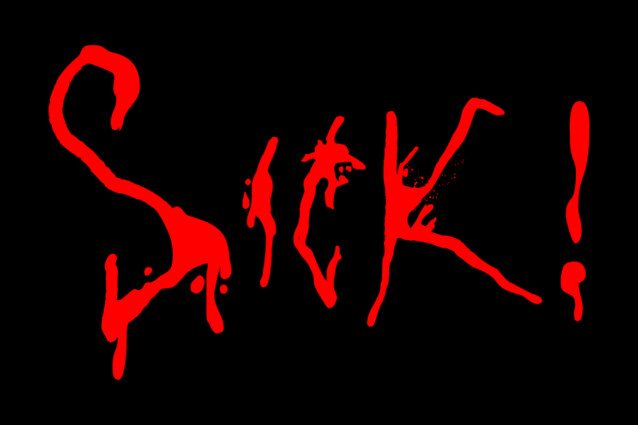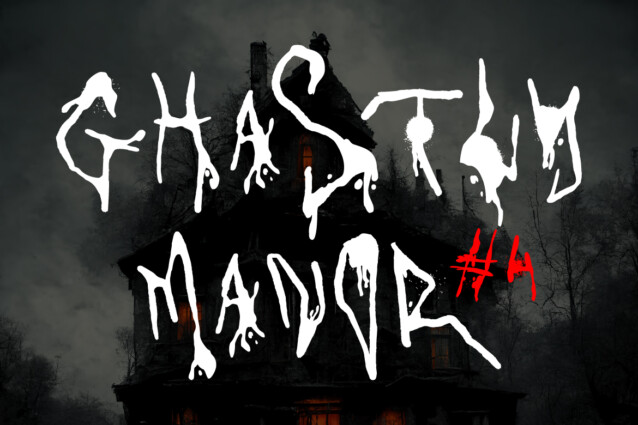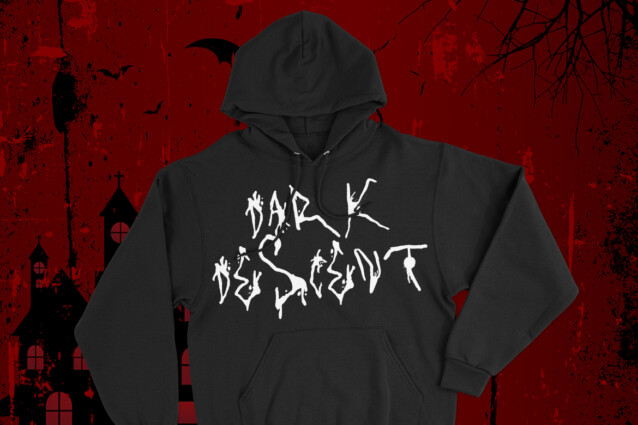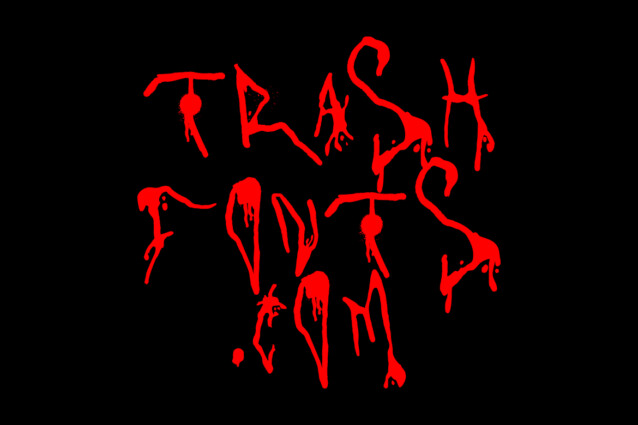
Trash Junkies Display Font
Trash Junkies Display Font is your doorway to the world of horror and intrigue. With dripping letterforms, it infuses a spine-chilling allure into your text. Perfect for logos, merchandise, album covers, and more, it adds a unique and eerie vibe to your designs. Unleash the darkness within and captivate your audience with “Trash Junkies” Font.